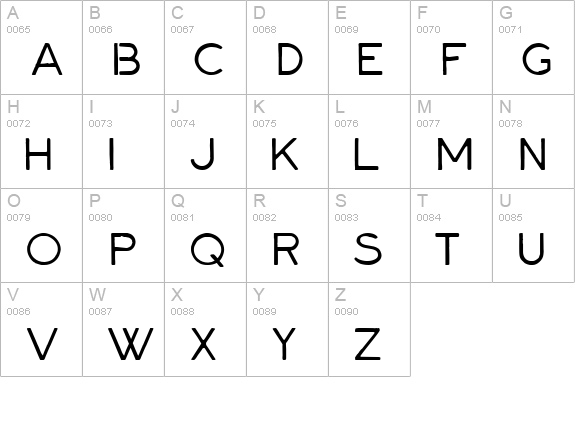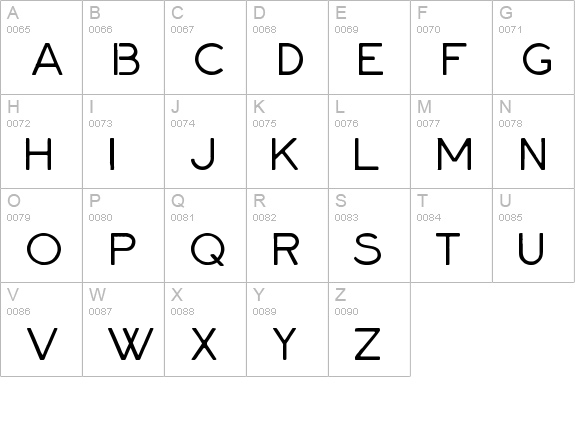
Minerva16 Font Details
Introducing Minerva16, a stunningly elegant font that effortlessly combines sophistication with modernity. This font is the epitome of class and grace, making it the perfect choice for any design project that requires a touch of refined beauty. Minerva16 is meticulously crafted with precision and attention to detail, ensuring every curve and line is flawlessly executed. Its sleek and slender letterforms exude a sense of timeless elegance, making it ideal for luxury branding, elegant invitations, or upscale editorial designs. What sets Minerva16 apart is not only its impeccable design but also its availability. This font is freely available to download at FontsMarket.com, allowing designers and creatives from all walks of life to access its sheer beauty and versatility without any limitations. Whether you're a professional designer or an aspiring enthusiast, Minerva16 offers you the opportunity to enhance your creative projects with a touch of sophistication, completely free of charge. With a wide range of weights and styles, Minerva16 offers endless possibilities for customization. From its delicate and refined thin weight to its bold and commanding black weight, this font can adapt to any design concept with ease. Its versatile nature allows it to effortlessly complement any other typeface or graphic element, ensuring seamless integration into your work. The legibility of Minerva16 is unparalleled, making it an excellent choice for both print and digital applications. Its clean and crisp lines ensure optimal readability, even at smaller sizes or in challenging layouts. This font will elevate your designs and captivate your audience, leaving a lasting impression of sophistication and professionalism. In summary, Minerva16 is a free font that effortlessly combines elegance and modernity, making it the perfect choice for any design project that requires a touch of refined beauty. With its availability for download at FontsMarket.com, it offers designers and creatives from all backgrounds the opportunity to enhance their work with a touch of sophistication, completely free of charge. Its impeccable design, versatility, and legibility make it a must-have in any designer's toolkit. Embrace the timeless elegance of Minerva16 and let your creativity soar to new heights.